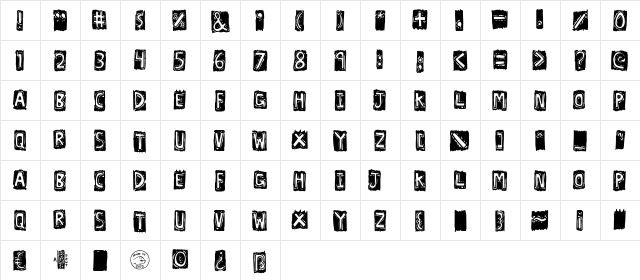
Lexographer Regular Free Font
Lexographer Regular
Foundry: [ Divide By Zero ] Fonts
Designer: Tom Murphy 7
Design Context for Lexographer
Lexographer is a composed and adaptable typeface that performs quietly and consistently across a wide range of design contexts.